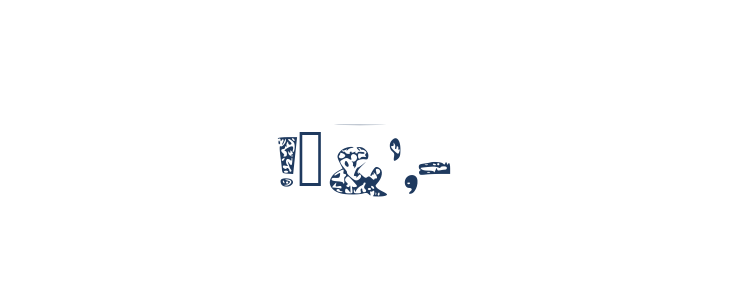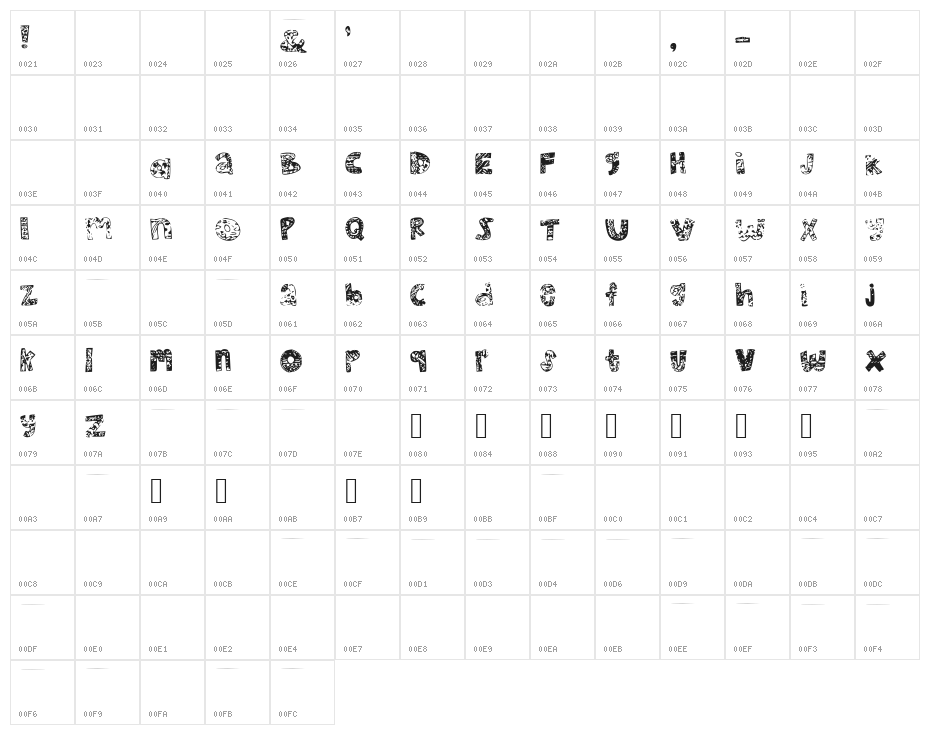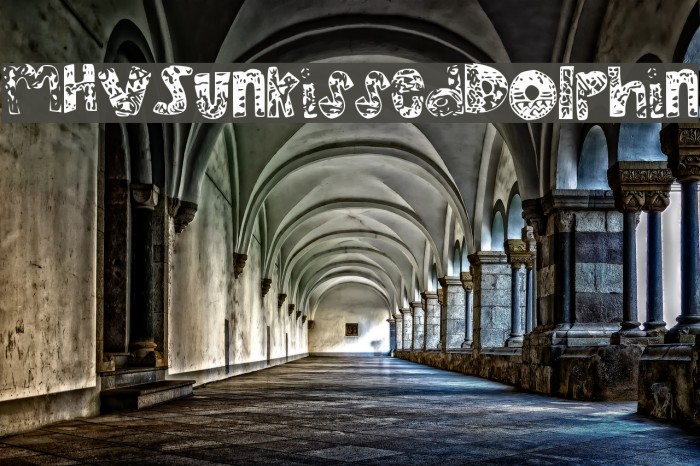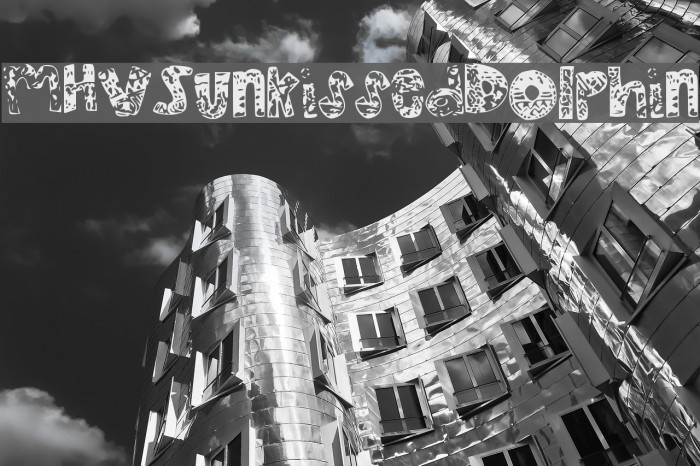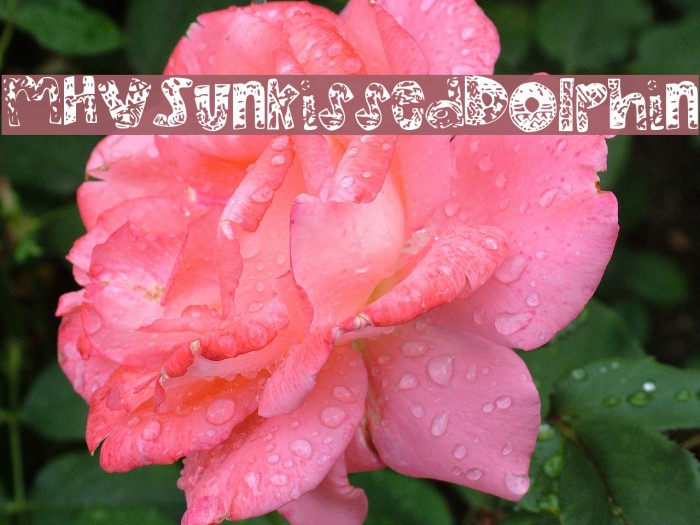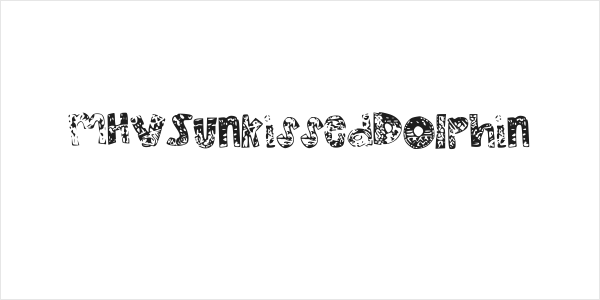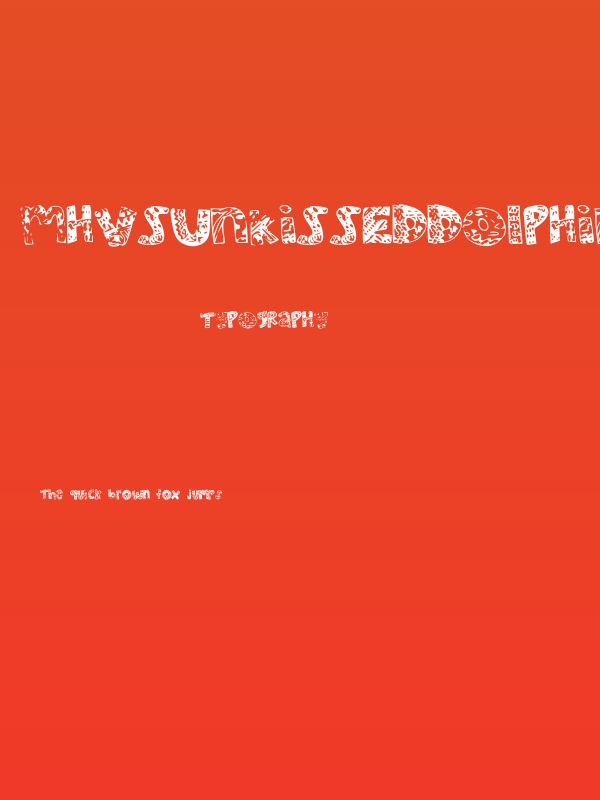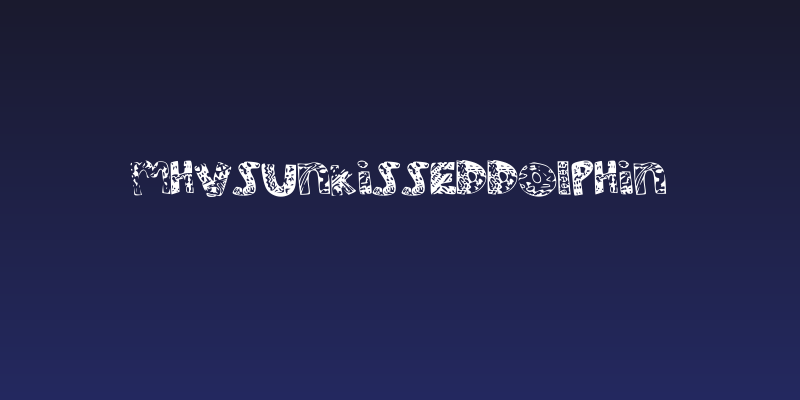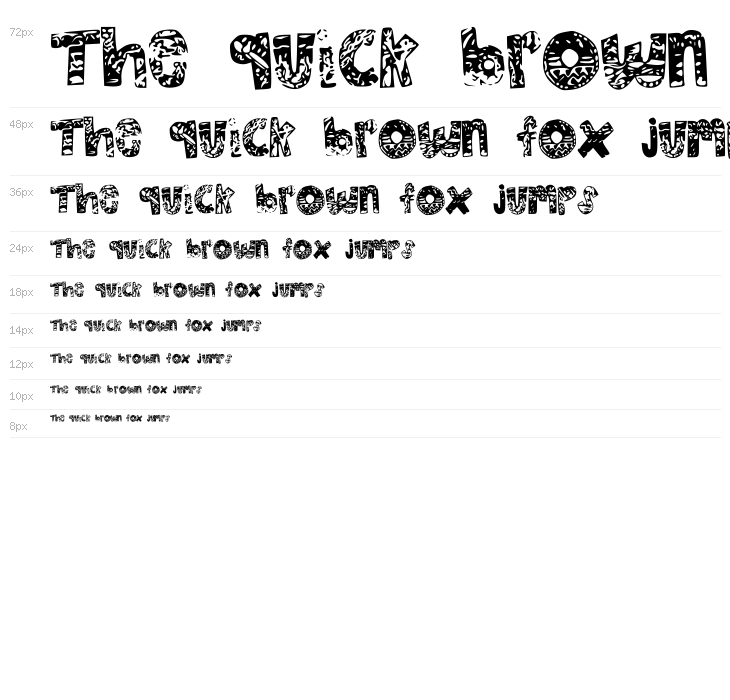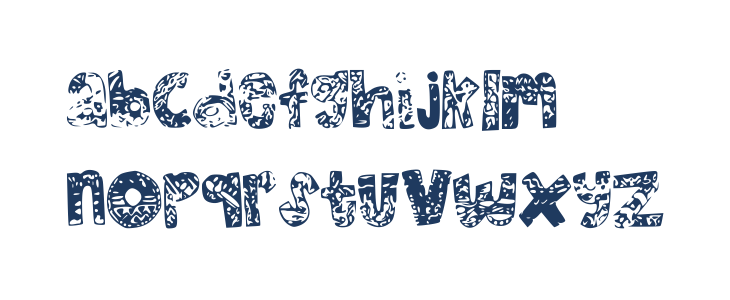
MHVSunkissedDolphin Font
MHVSunkissedDolphin Description
This font is a playful and decorative typeface featuring intricate patterns and textures within each character. The letters are bold and eye-catching, with a whimsical design that incorporates various shapes and motifs. The uppercase and lowercase letters maintain a consistent style, with each character uniquely filled with artistic elements. The numbers and special characters follow the same decorative theme, making the font suitable for creative and fun projects. Its distinct appearance makes it stand out, perfect for capturing attention in a variety of settings.
| Proposed Projects | Ideal for children's books, playful branding, party invitations, and artistic posters. |